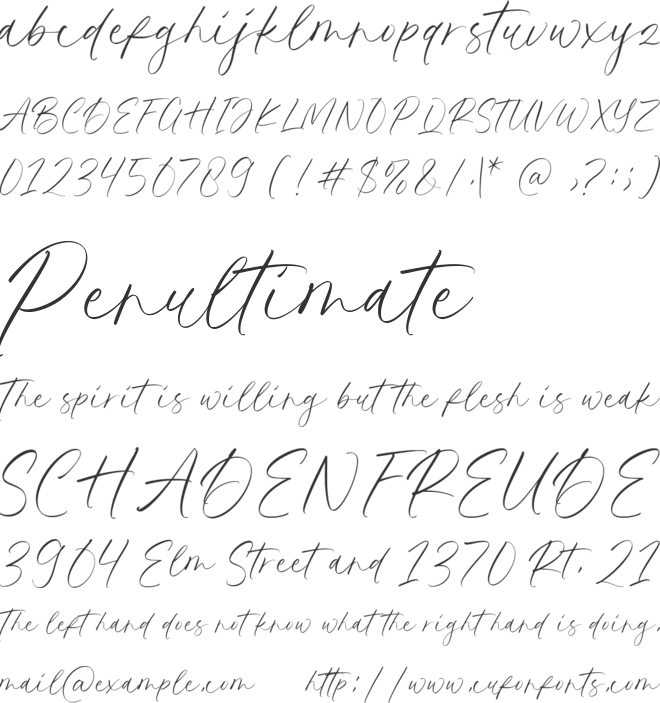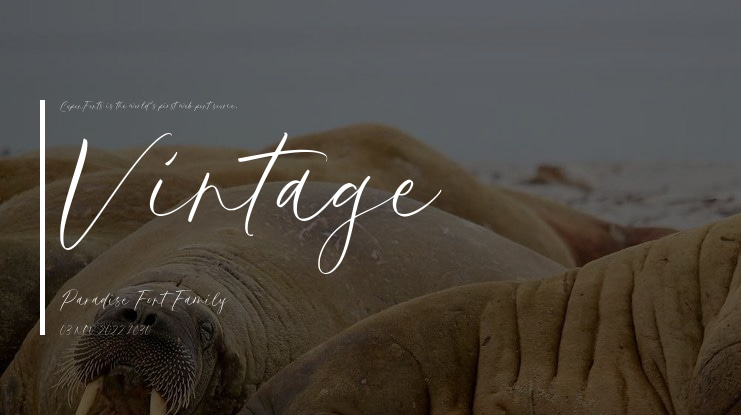
Vintage Paradise Font
Introducing Vintage Paradise, a charming Handwritten Script Font that is perfect for adding a personal touch to your design projects. With its natural and organic feel, this font has a unique character.
Crafted with precision and attention to detail, Vintage Paradise is a versatile font that can be used for various design projects such as logos, branding, invitations, and more. Its modern handwritten style sets it apart and guarantees to leave a lasting impression.